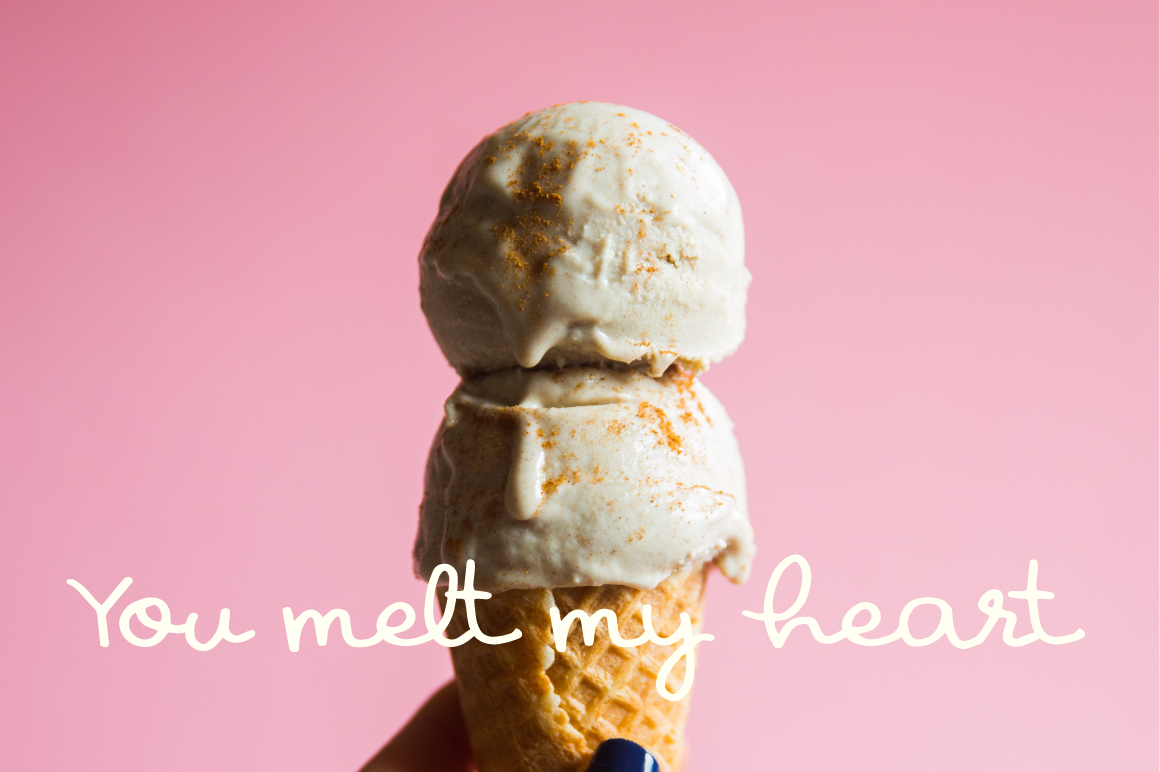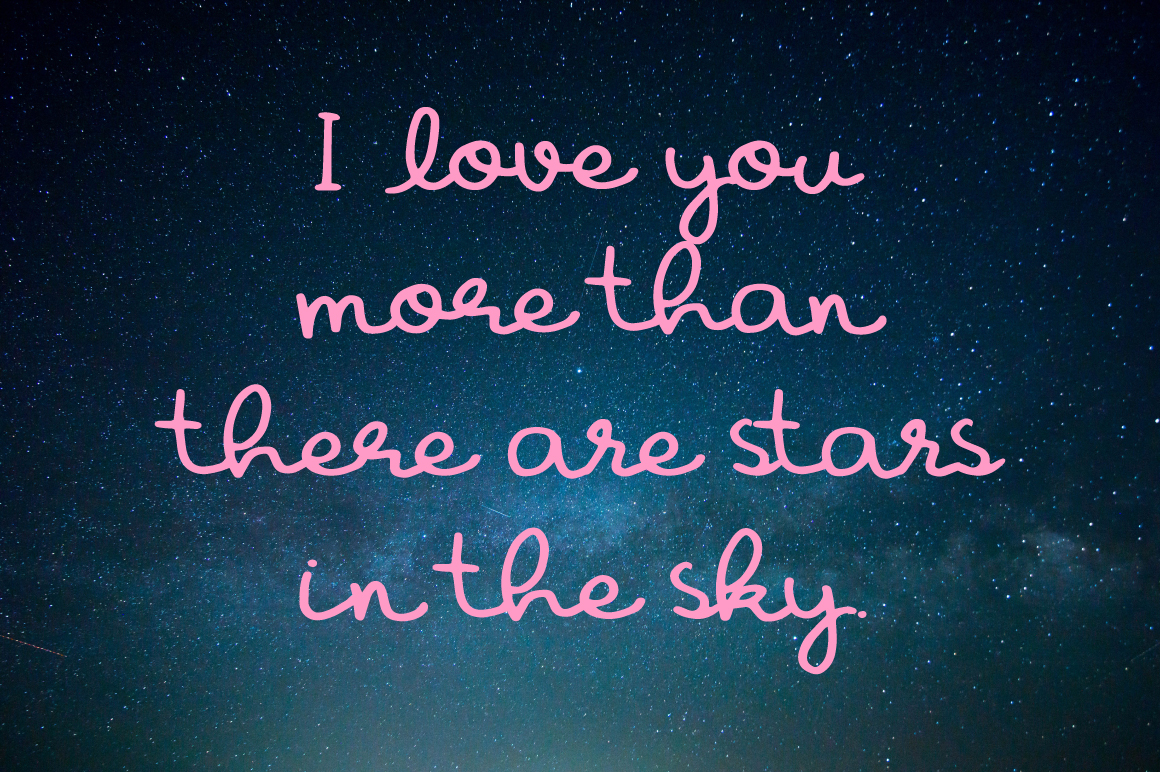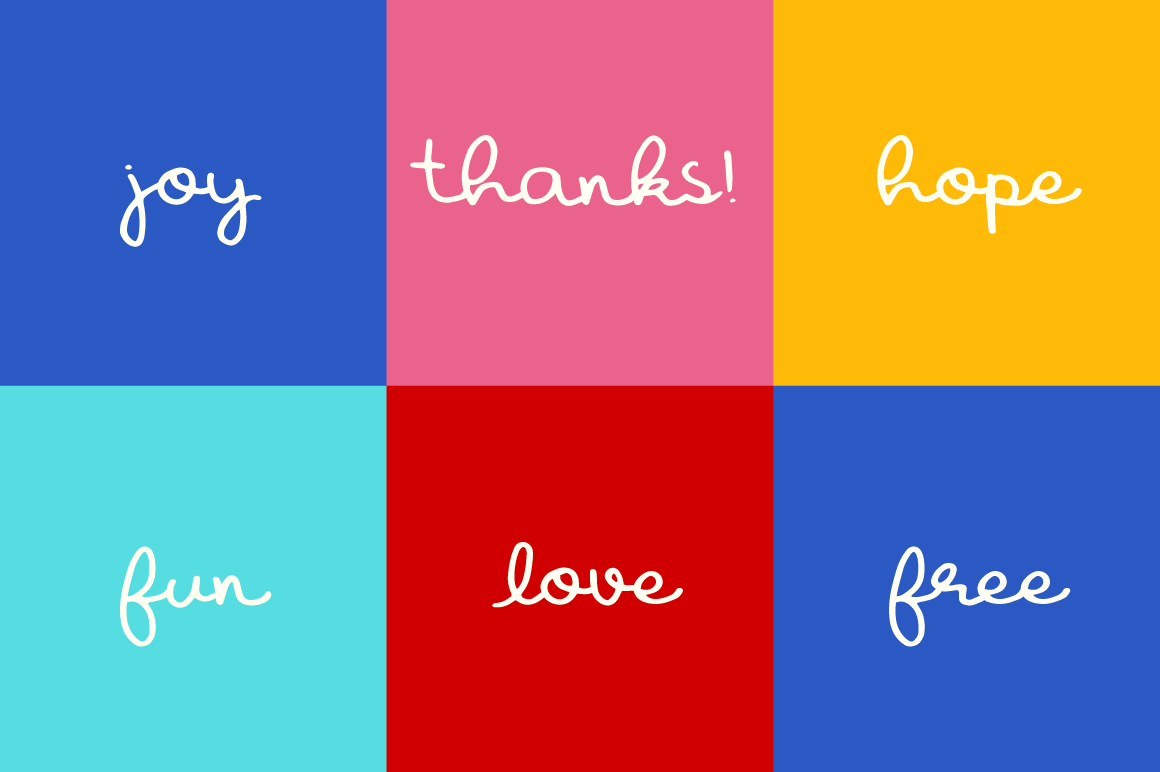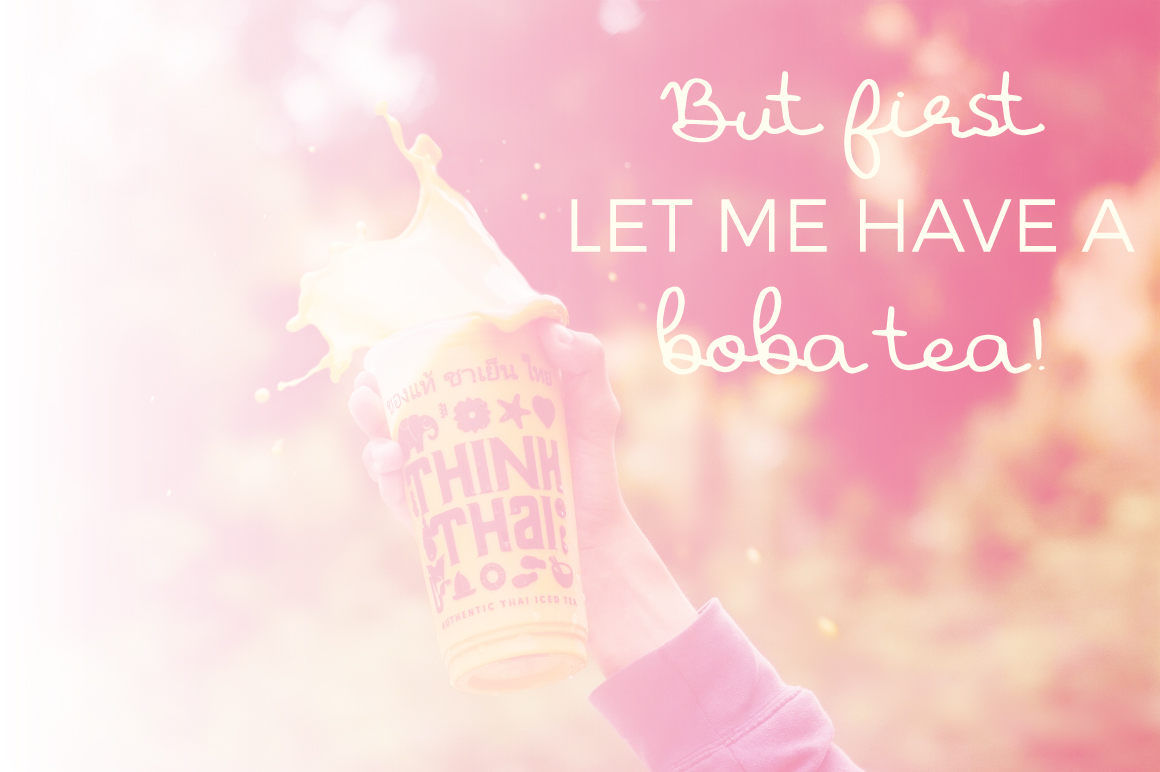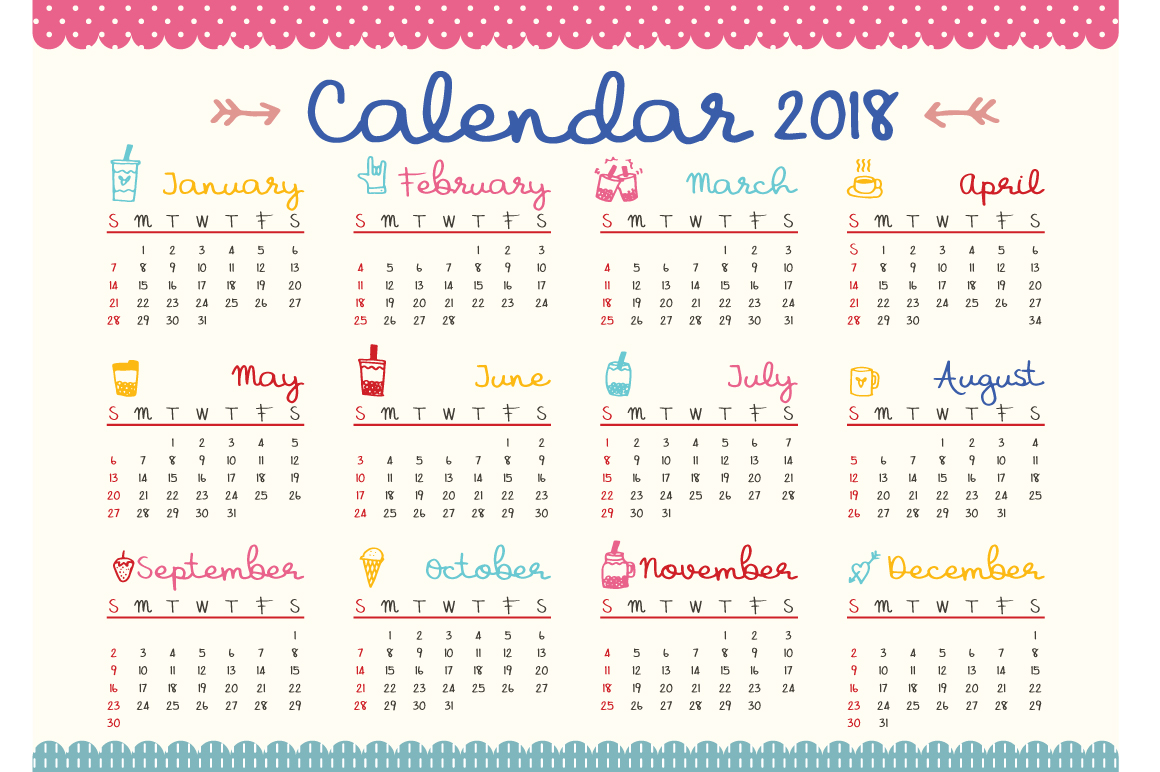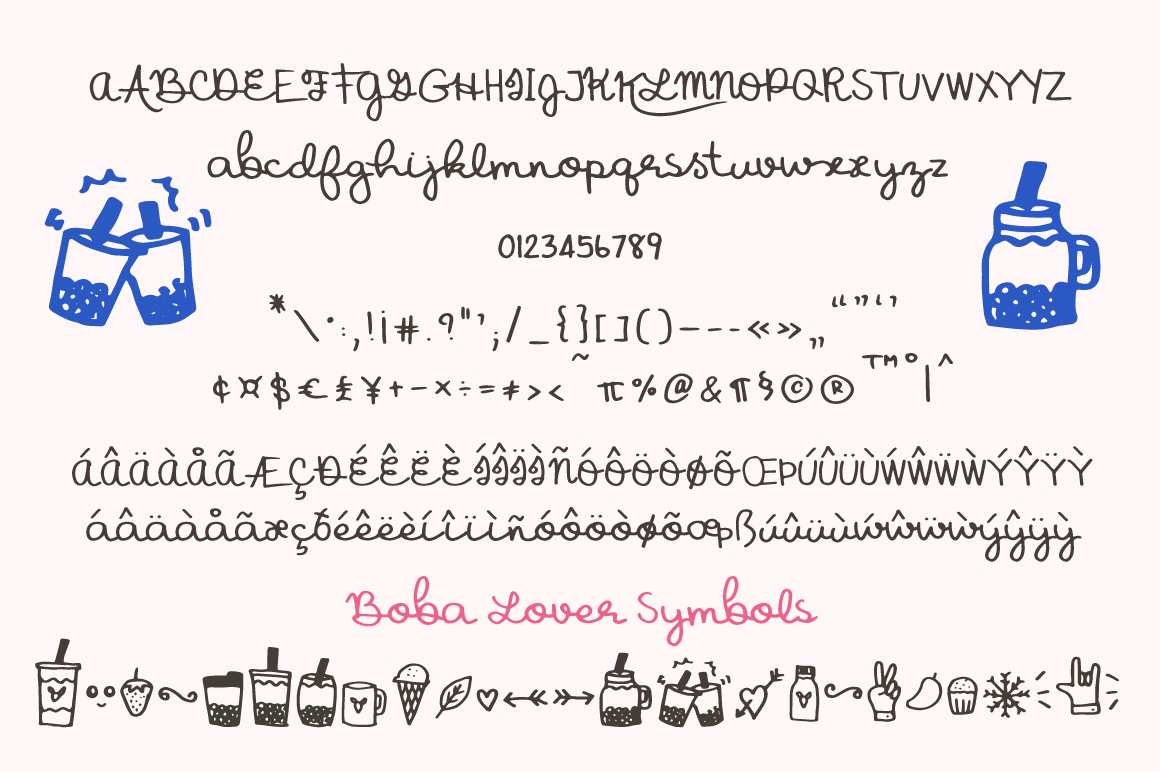
Boba Lover Font: Add a Touch of Fun and Sunniness to Your Designs
Are you a fan of boba tea and all things cute and quirky? Look no further than the Boba Lover Font, a handwriting script typeface designed to evoke the sense of joy and relaxation you feel when sipping on a delicious cup of boba tea. This adorable font is perfect for designers, crafters, and anyone looking to add a touch of fun and sunniness to their designs.
What is Boba Lover Font?
Boba Lover is a unique and charming script font that is sure to capture the hearts of anyone who lays eyes on it. With its flowing, handwriting-like curves and carefree vibe, this font is perfect for creating designs that are playful, youthful, and fun. Whether you’re working on a project for a boba tea shop, a kids’ party invitation, or simply want to add some personality to your social media graphics, Boba Lover is the perfect choice.
Characteristics of Boba Lover Font
So, what makes Boba Lover Font so special? Here are just a few of its key characteristics:
- Handwritten script style: Boba Lover has a beautiful, handwritten script style that gives it a personal and carefree feel.
- Cute and relaxed vibe: This font is designed to evoke the sense of joy and relaxation you feel when drinking boba tea, making it perfect for creating fun and uplifting designs.
- Easy to read: Despite its playful style, Boba Lover is easy to read and understand, making it perfect for use in a variety of design projects.
- Versatile: This font can be used for a wide range of design projects, from social media graphics and invitations to posters and more.
Uses for Boba Lover Font
So, what can you use Boba Lover Font for? The possibilities are endless! Here are just a few ideas to get you started:
- Boba tea shop branding: If you’re a boba tea shop owner, Boba Lover Font is the perfect choice for your branding, including your logo, menus, and marketing materials.
- Kids’ party invitations: This font is perfect for creating adorable and playful invitations for kids’ parties and other events.
- Social media graphics: Add a touch of fun and personality to your social media graphics with Boba Lover Font.
- Posters and flyers: Use Boba Lover Font to create eye-catching posters and flyers for events, promotions, and more.
If you’re looking for a fun and playful font to add a touch of sunniness to your designs, look no further than Boba Lover Font. With its cute and relaxed vibe, this handwriting script typeface is perfect for designers, crafters, and anyone looking to create designs that are youthful, fun, and engaging. Download Boba Lover Font today and start creating designs that are sure to bring a smile to people’s faces!